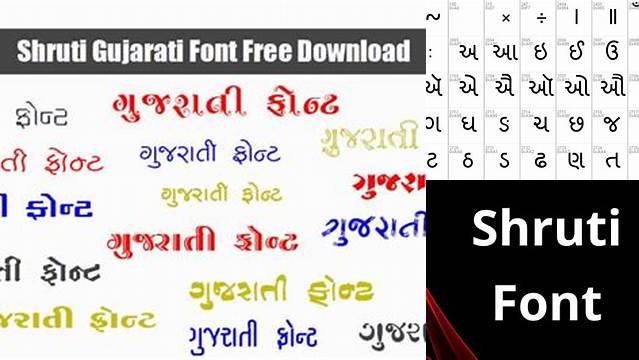
What is the Google Gujarati Font Shruti?
Let's get down to the nitty-gritty. The Google Gujarati Font Shruti is a digital typeface specifically designed to render the Gujarati script. Created by Google Fonts, it's a part of their extensive library of open-source fonts, which means it's freely available for anyone to use. This font is known for its readability and aesthetic appeal, making it a popular choice for various applications. You can find it in different weights, allowing for versatility in your designs. It's specifically designed to handle the complex curves and unique letterforms that characterize the Gujarati script. Shruti is not just a font; it's a bridge connecting you with the rich cultural heritage of Gujarat. Its design is rooted in traditional calligraphy, while also optimized for modern digital displays. This makes it perfect for everything from website content to printed materials. Using Shruti helps ensure your Gujarati text looks professional, polished, and easily understandable by your audience. Understanding the characteristics of the font is crucial to effectively use it in your projects. It has been created to improve legibility, even at smaller sizes, so that your content always looks clear and clean. It is one of the reasons it is one of the most widely adopted Gujarati fonts, because of its elegant and professional feel.
Why Choose Shruti? Benefits and Features
So, why should you choose Shruti over other Gujarati fonts? Well, the benefits are pretty compelling. First and foremost, it's free! Yep, you heard that right. You can download and use it without spending a dime, making it accessible to everyone. Shruti's design is another major advantage. It's crafted to be highly legible, even at smaller sizes, which is essential for websites, apps, and documents where space is often limited. Its clean and modern aesthetic ensures that your text looks professional and visually appealing. It strikes a perfect balance between traditional Gujarati script styles and contemporary design principles. It is a great choice to showcase your content to a global audience. This font has been specifically created to cater to the needs of modern digital communication. It supports a comprehensive set of characters and glyphs, which means it can handle all of the nuances of the Gujarati language. Whether you're writing a simple social media post or creating a complex document, Shruti has got you covered. It is designed with both usability and aesthetics in mind, it stands out as a top pick. So, Shruti isn't just a font; it's a statement. It tells your audience that you value clarity, readability, and the beauty of the Gujarati language. It's designed with modern digital displays in mind, so its readability is top-notch. This versatility makes it perfect for a range of applications, from website design to creating print materials.